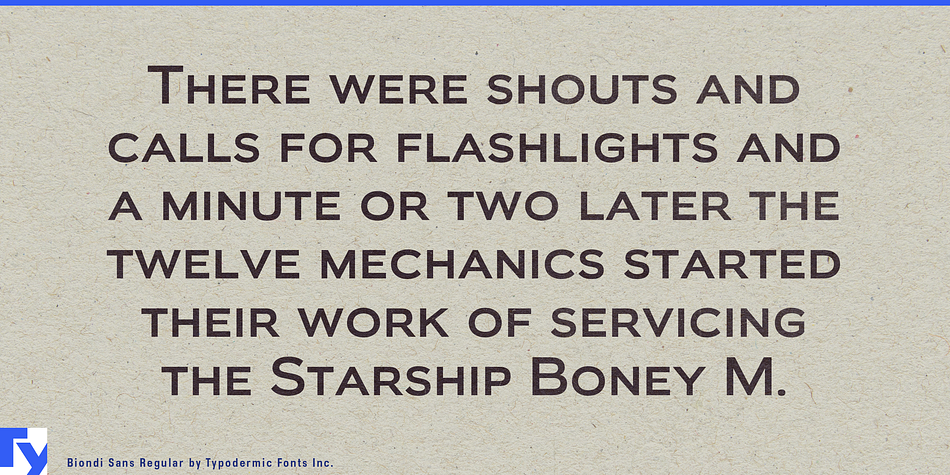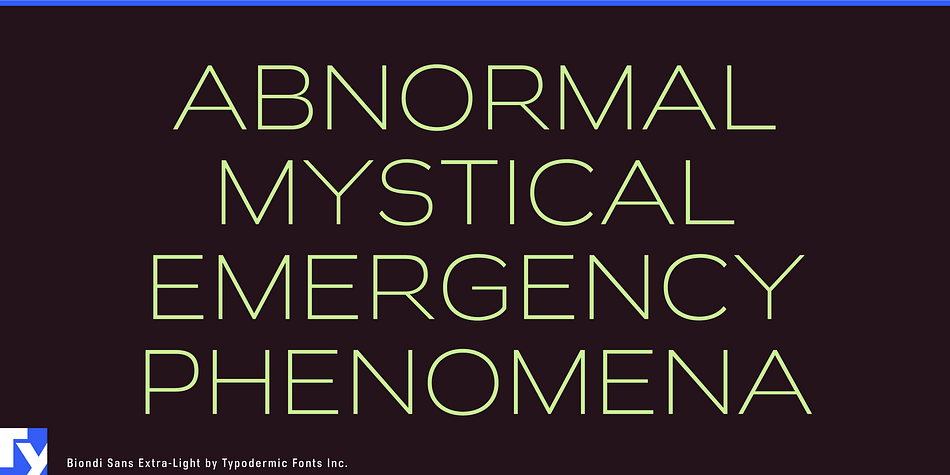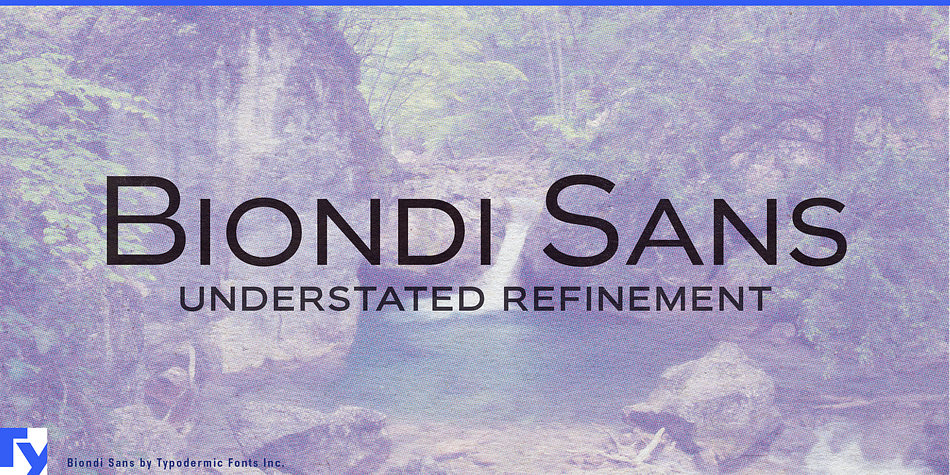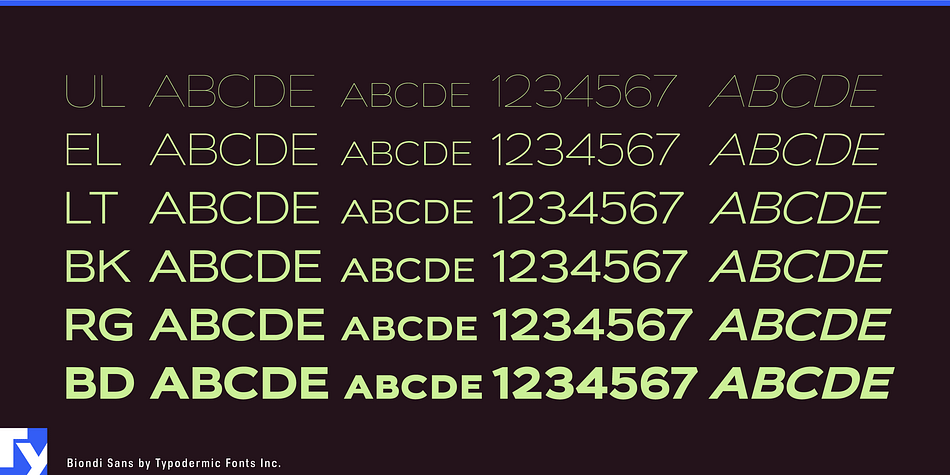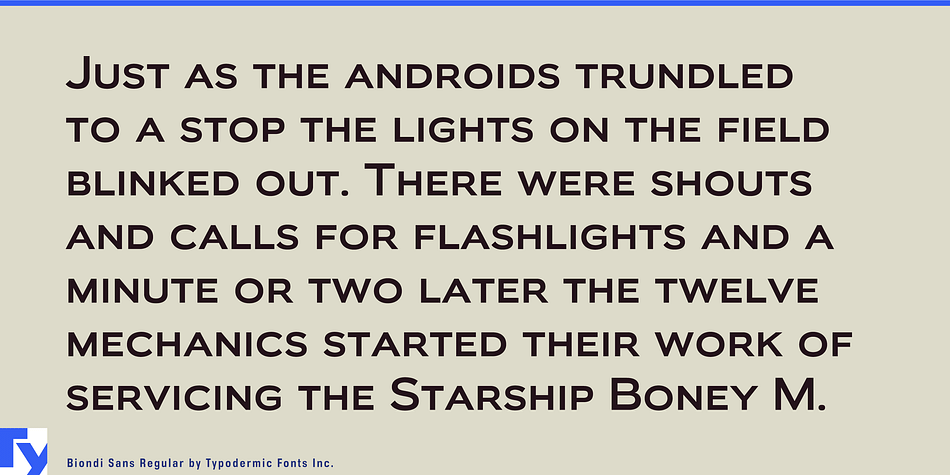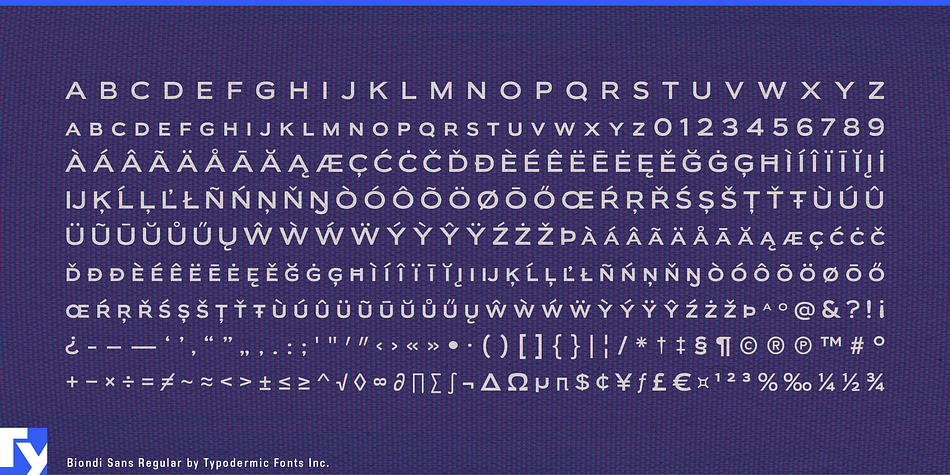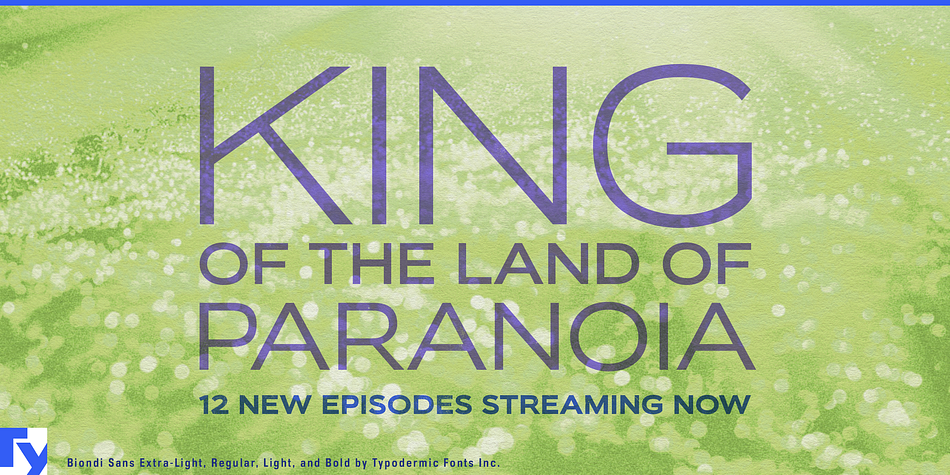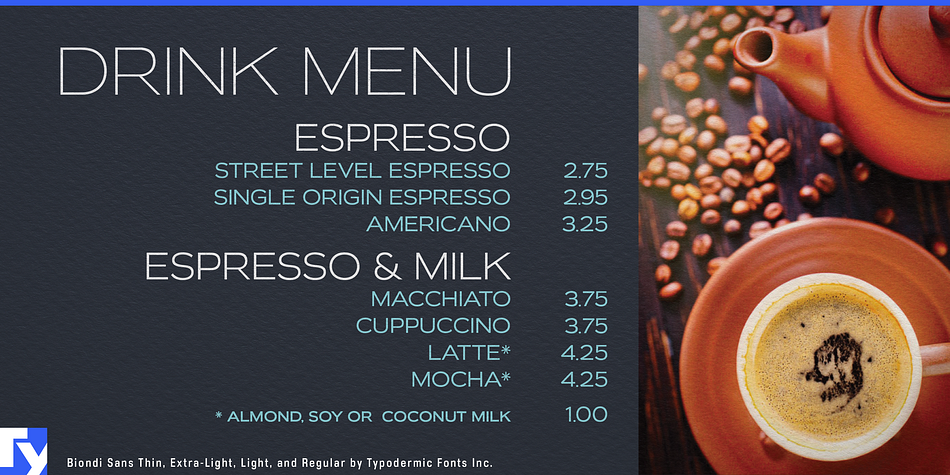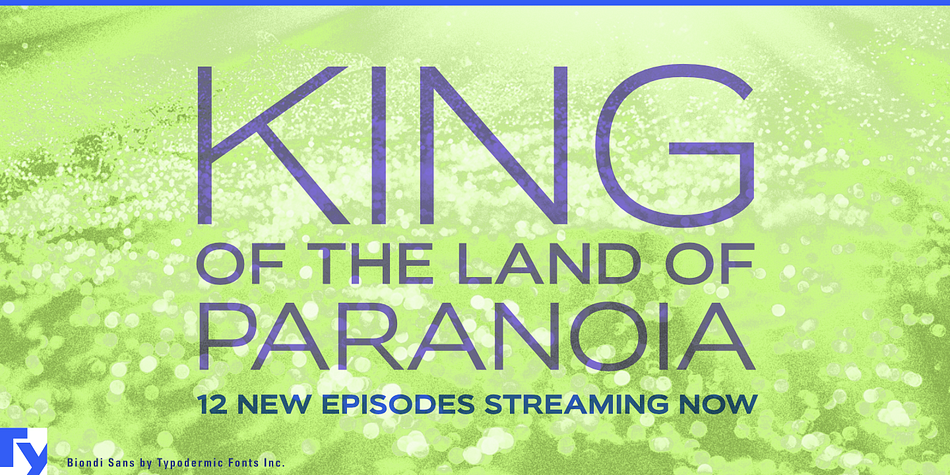
Biondi Sans is a display sans font family. This typeface has twelve styles and was published by Typodermic Fonts Inc.
Biondi Sans is a sans-serif typeface evocative of early twentieth-century engraved nameplates. The character proportions and letterforms are similar to that of Morris Filler Benton’s Copperplate. Biondi Sans is available in 6 weights with italics.